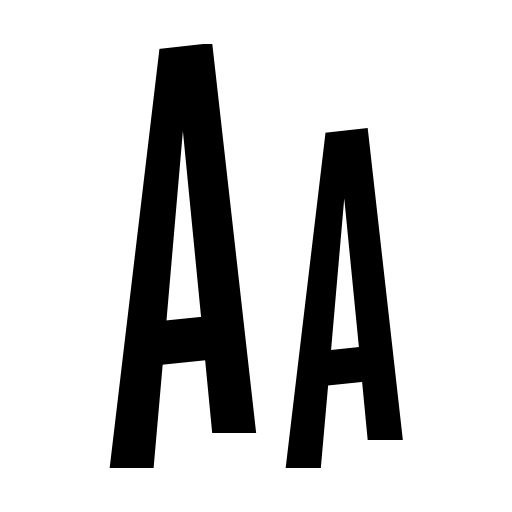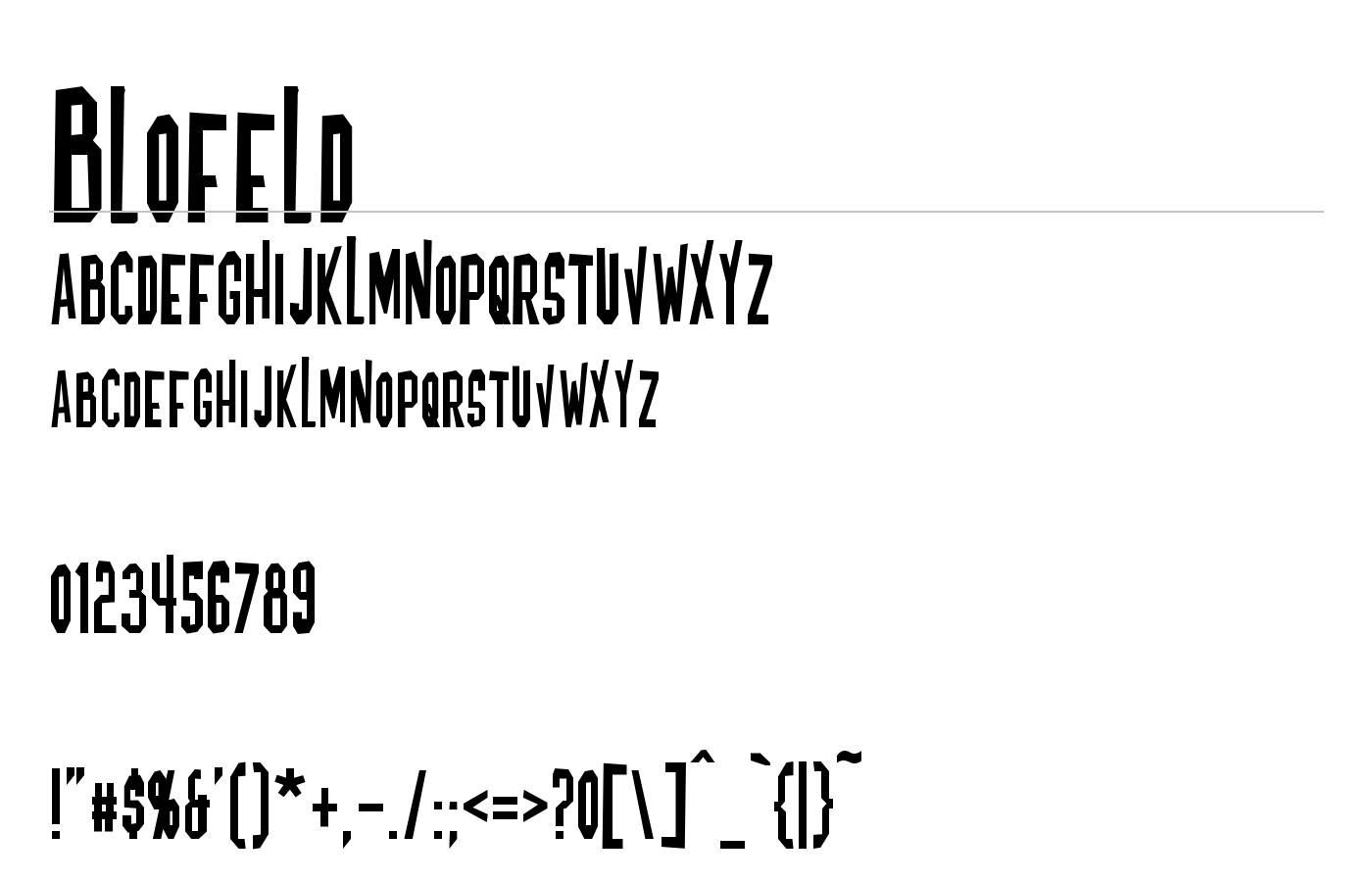
Blofeld is a narrow, bold sans serif font with a tall x-height and sharp, angular letterforms that create a strong, striking appearance. Its condensed width and high contrast strokes give it a modern and slightly edgy vibe, making it ideal for headlines, posters, and branding that demand attention. This font works well for bold typographic statements and creative projects that want to convey confidence and a distinctive character.
Blofeld Font